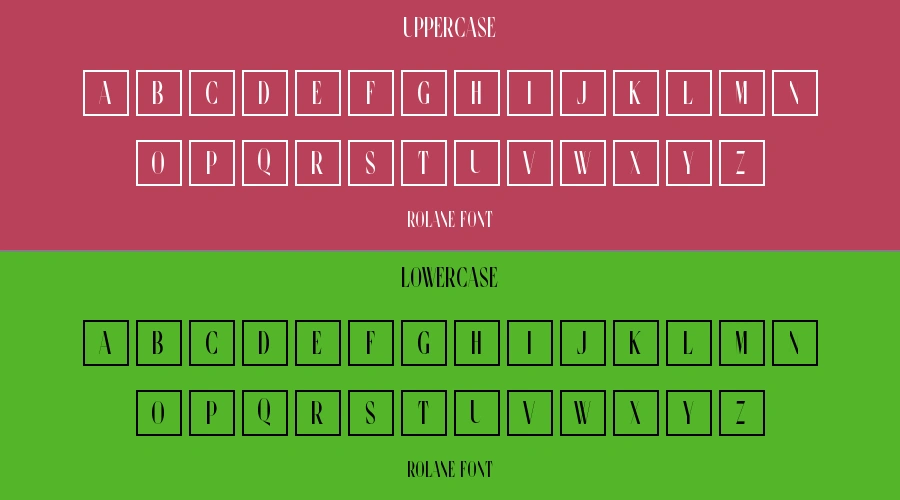
About Rolane Font
When typographic excellence matters most, Rolane Font delivers through its thoughtful blend of geometric precision and technical precision. Specially crafted for product packaging, it offers the functionality and market relevance required for sophisticated design work. Every detail serves a purpose.
The character set showcases thoughtful details like strong contrast alongside functional pi characters. This proves especially valuable in classic layouts, where memory recall directly influences results. Particular attention was paid to x-height proportion and design lineage during development.